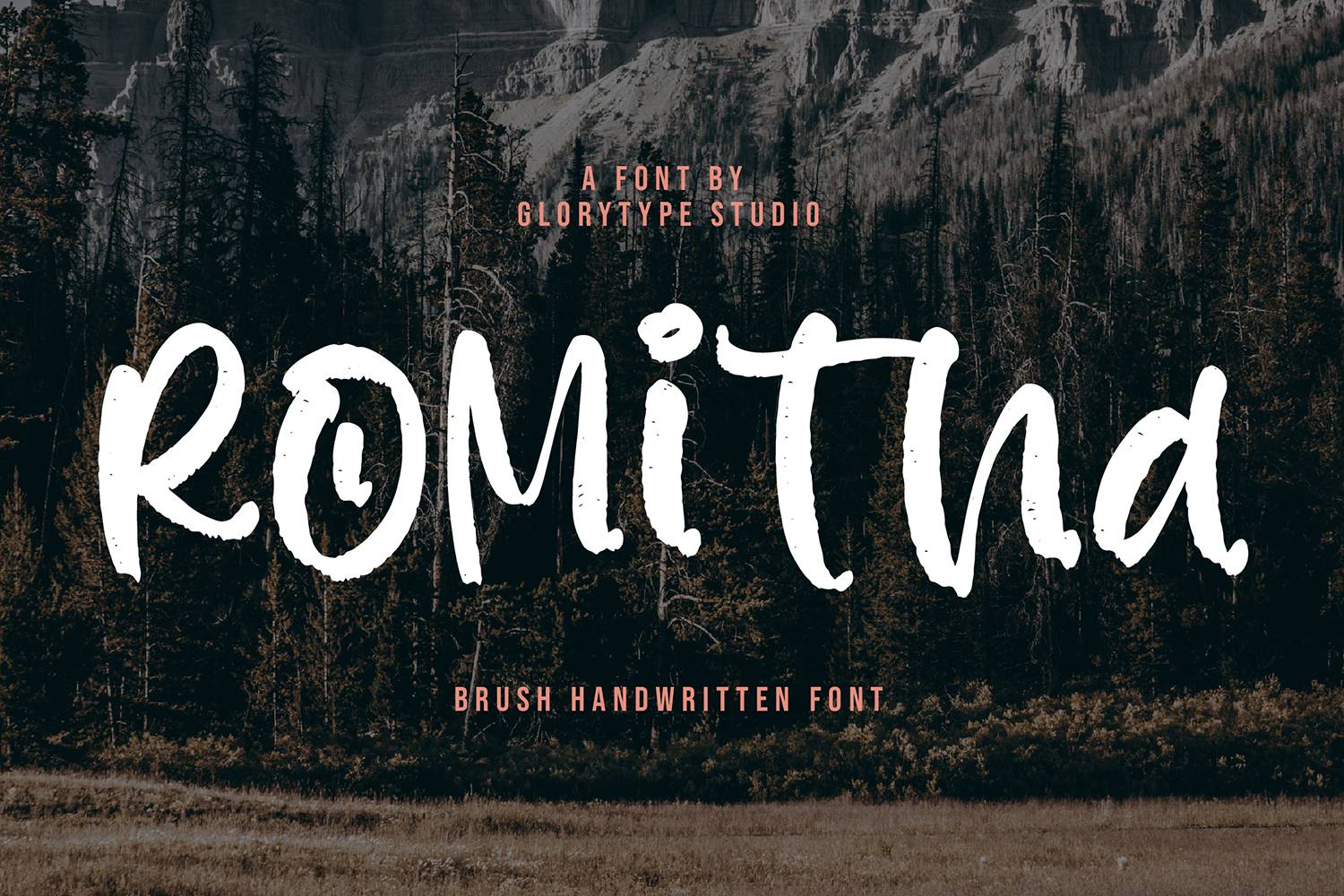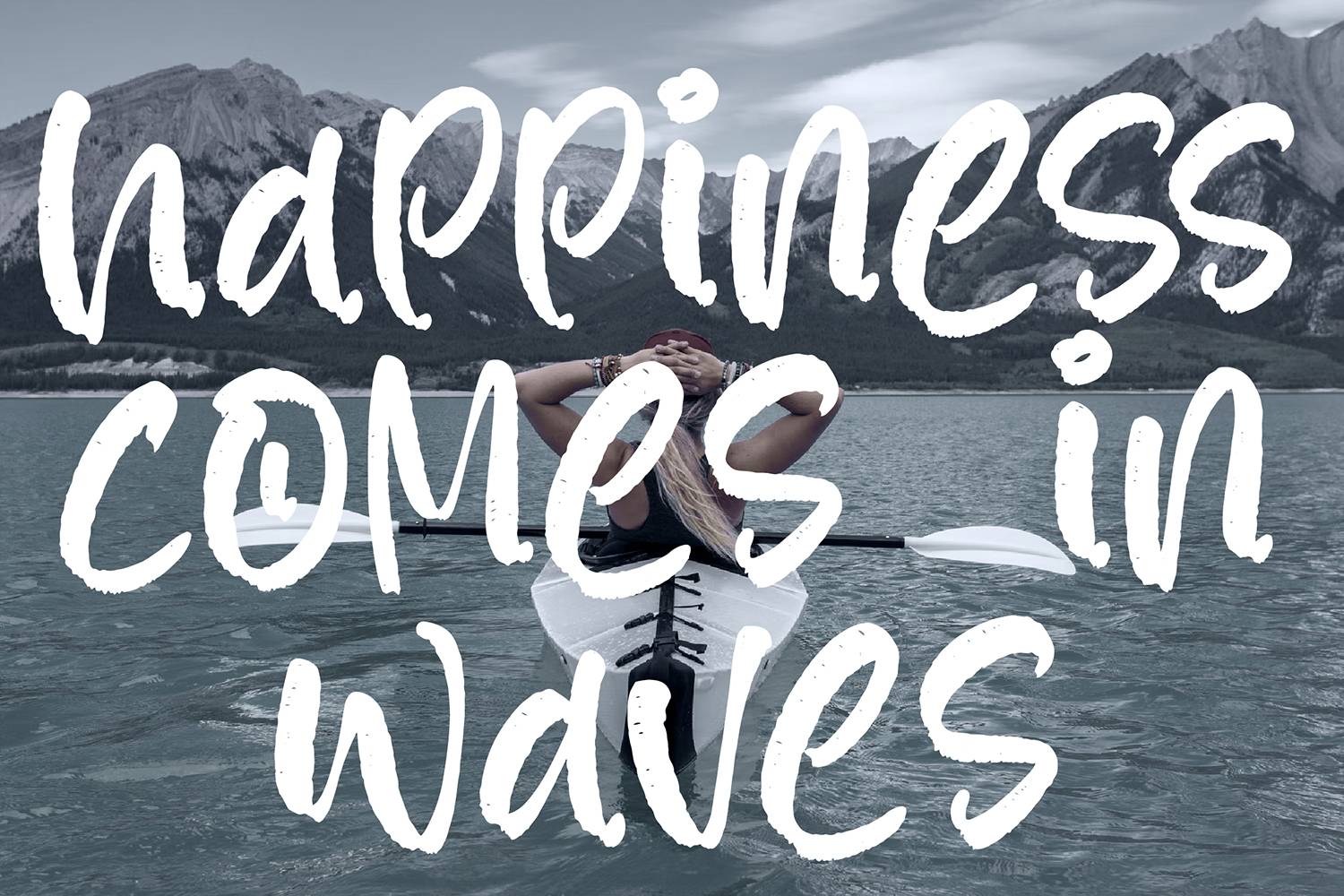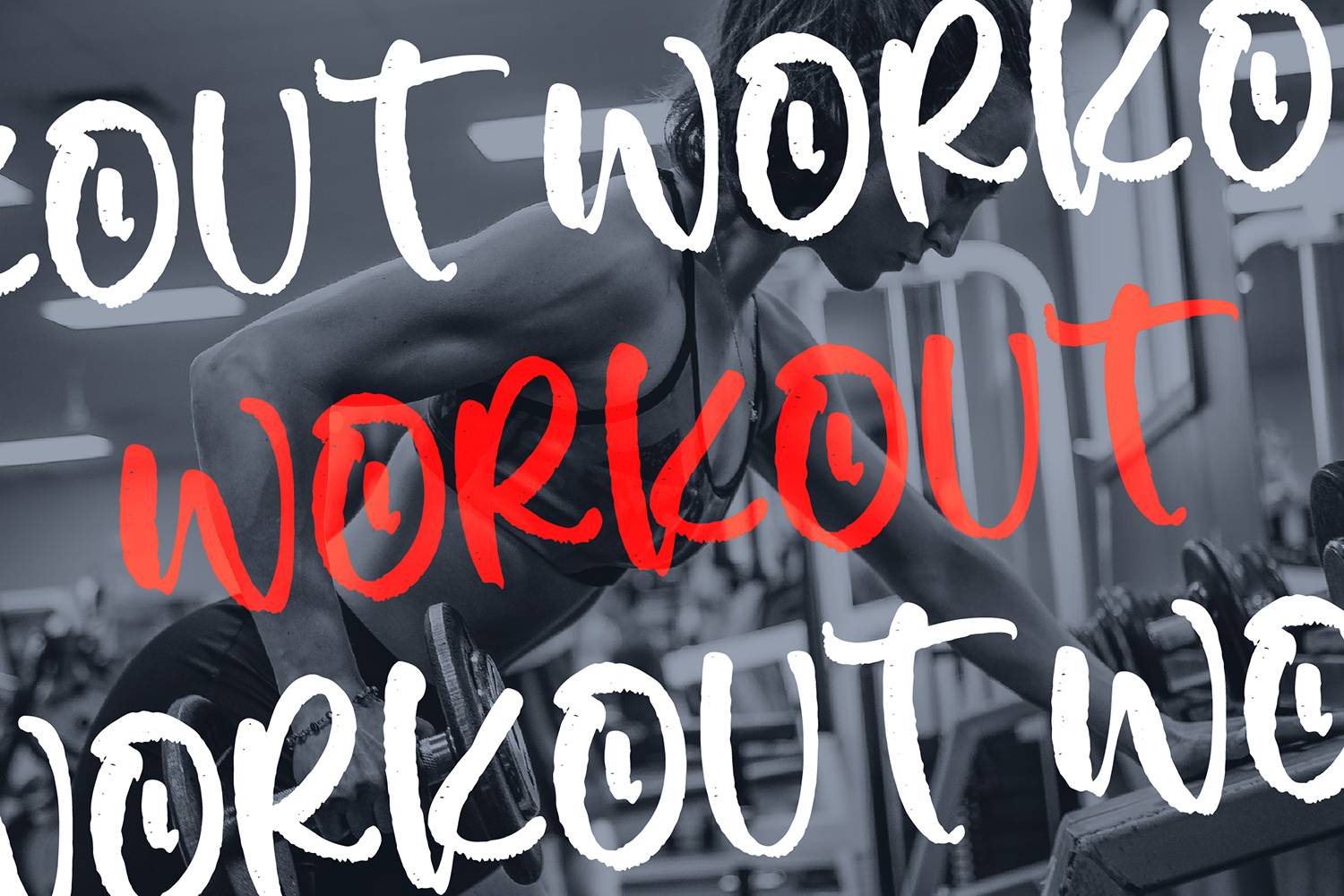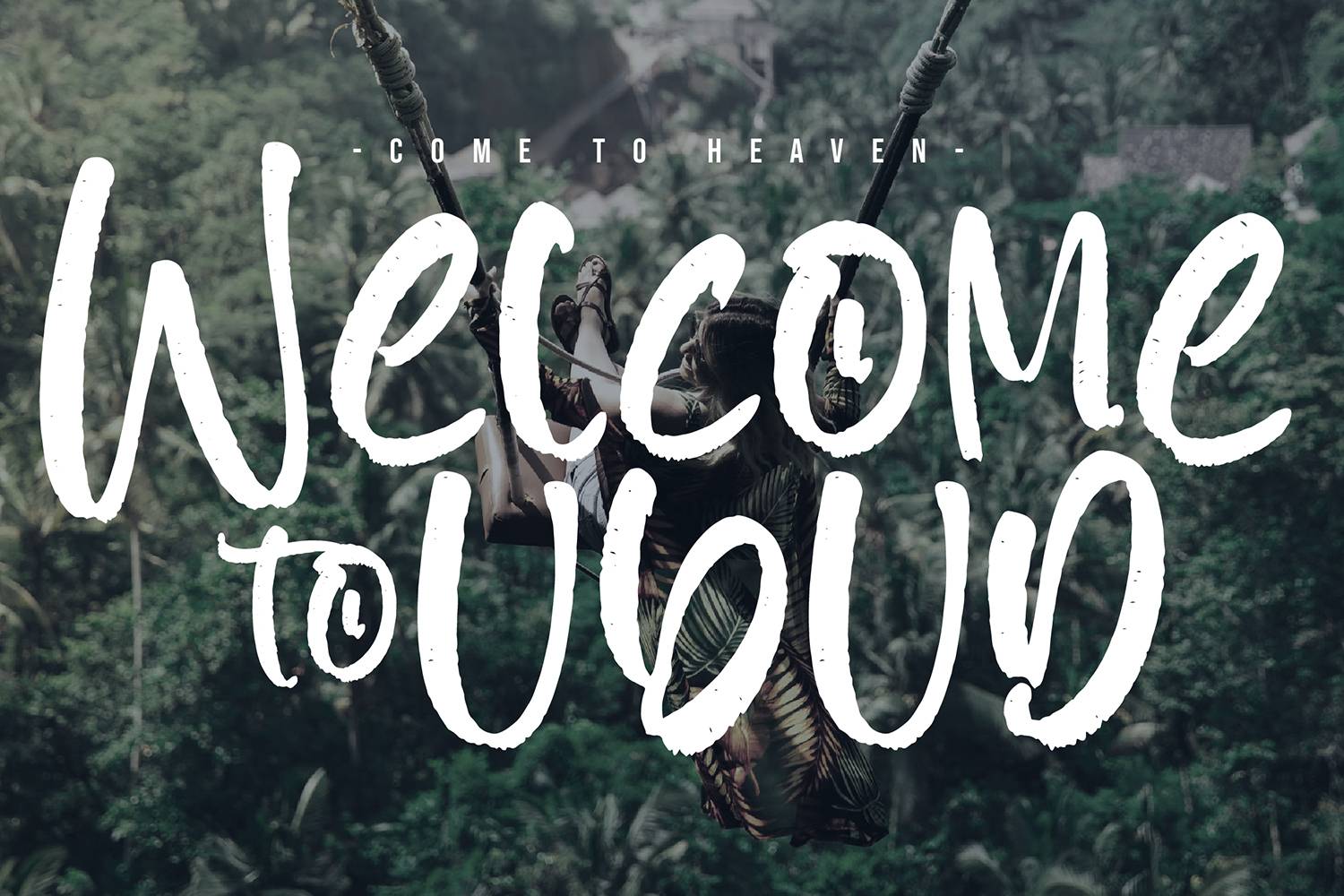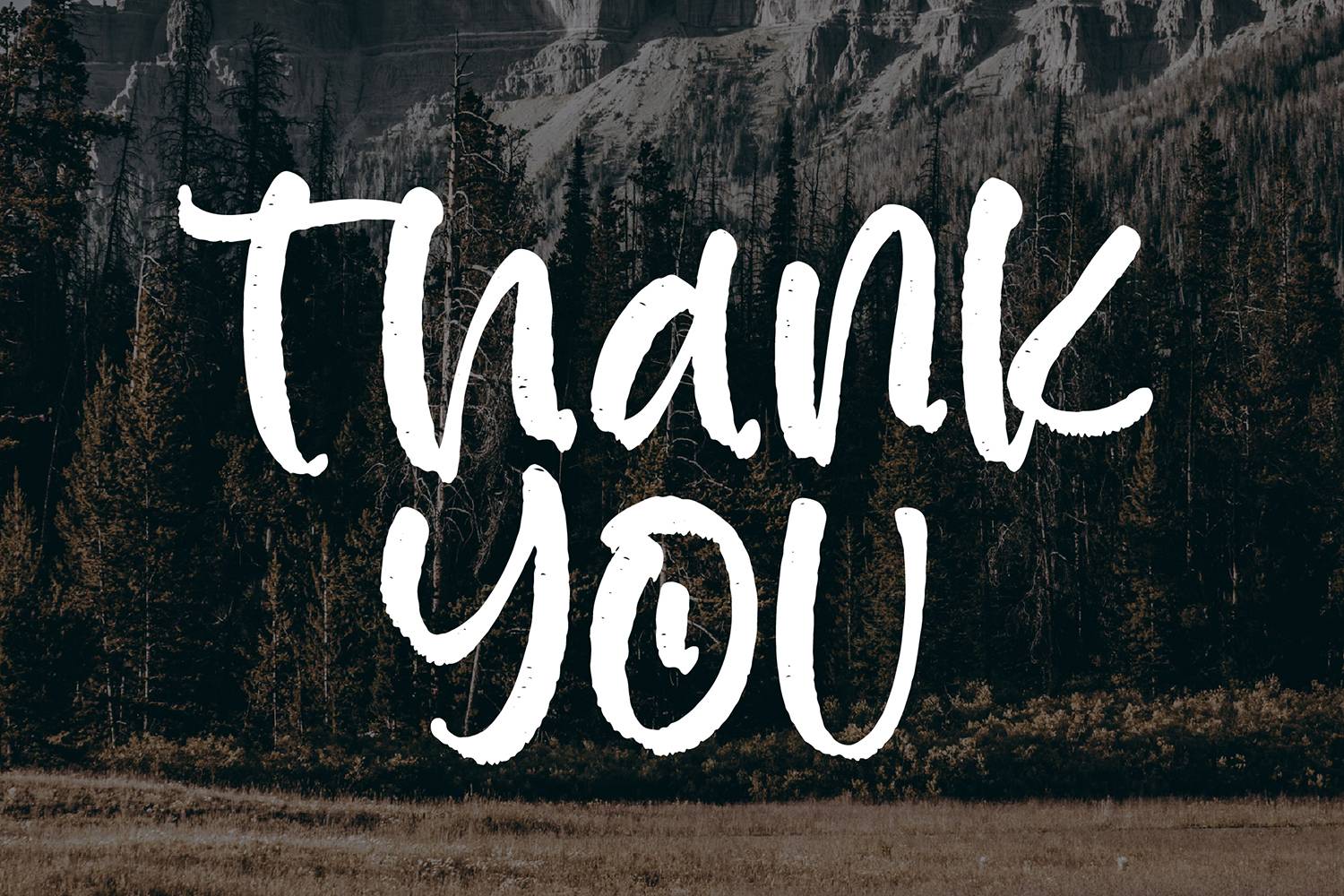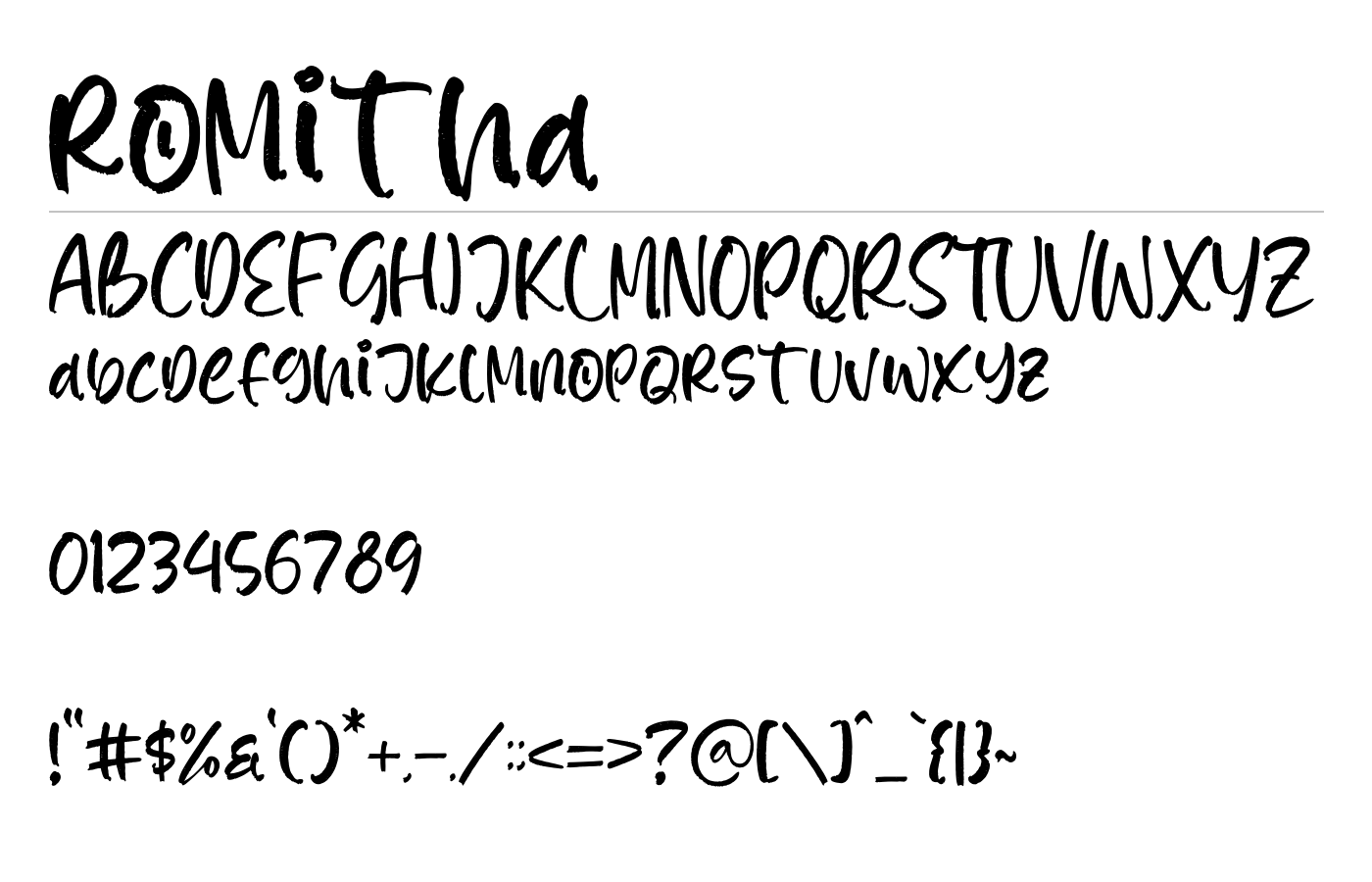
Romitha is a playful and casual handwritten font with a lively, brush-like texture that gives it an organic and personal feel. Its uneven strokes and slightly irregular shapes make it perfect for creative projects, informal branding, and designs seeking a warm, approachable touch. This font works well in logos, posters, and social media graphics where a friendly, hand-crafted vibe is desired.
Romitha Font
About Romitha Font
| Font family | Romitha Font |